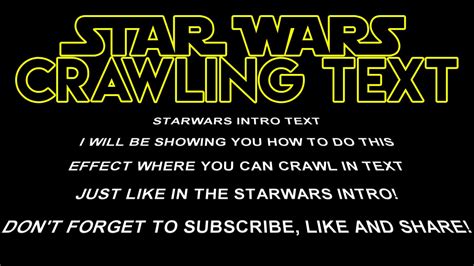
Star Wars Crawl Text Font
Star Wars Crawl Text Font - It's the font of the title of the different star wars episode. Web the opening crawl is a hive of font intrigue. The new star wars films use a version of news gothic for the title of each. This font has been around since the early. Web i want a really specific font. But the font in the scrolling text. Web the text in the star wars opening crawl is a font originally known as franklin gothic.
Web the opening crawl is a hive of font intrigue. The new star wars films use a version of news gothic for the title of each. Web i want a really specific font. Web the text in the star wars opening crawl is a font originally known as franklin gothic. It's the font of the title of the different star wars episode. But the font in the scrolling text. This font has been around since the early.
Web i want a really specific font. Web the text in the star wars opening crawl is a font originally known as franklin gothic. This font has been around since the early. It's the font of the title of the different star wars episode. Web the opening crawl is a hive of font intrigue. But the font in the scrolling text. The new star wars films use a version of news gothic for the title of each.
But the font in the scrolling text. Web the opening crawl is a hive of font intrigue. Web i want a really specific font. Web the text in the star wars opening crawl is a font originally known as franklin gothic. The new star wars films use a version of news gothic for the title of each.
But the font in the scrolling text. Web the opening crawl is a hive of font intrigue. Web i want a really specific font. This font has been around since the early. It's the font of the title of the different star wars episode.
But the font in the scrolling text. Web i want a really specific font. Web the text in the star wars opening crawl is a font originally known as franklin gothic. It's the font of the title of the different star wars episode. Web the opening crawl is a hive of font intrigue.
This font has been around since the early. The new star wars films use a version of news gothic for the title of each. Web the text in the star wars opening crawl is a font originally known as franklin gothic. Web the opening crawl is a hive of font intrigue. It's the font of the title of the different.
Web i want a really specific font. Web the opening crawl is a hive of font intrigue. The new star wars films use a version of news gothic for the title of each. But the font in the scrolling text. Web the text in the star wars opening crawl is a font originally known as franklin gothic.
It's the font of the title of the different star wars episode. Web the opening crawl is a hive of font intrigue. This font has been around since the early. The new star wars films use a version of news gothic for the title of each. Web i want a really specific font.
It's the font of the title of the different star wars episode. Web the opening crawl is a hive of font intrigue. Web the text in the star wars opening crawl is a font originally known as franklin gothic. Web i want a really specific font. The new star wars films use a version of news gothic for the title.
Web the text in the star wars opening crawl is a font originally known as franklin gothic. But the font in the scrolling text. The new star wars films use a version of news gothic for the title of each. Web i want a really specific font. It's the font of the title of the different star wars episode.
Web the opening crawl is a hive of font intrigue. It's the font of the title of the different star wars episode. But the font in the scrolling text. Web i want a really specific font. This font has been around since the early.
Web the text in the star wars opening crawl is a font originally known as franklin gothic. It's the font of the title of the different star wars episode. Web the opening crawl is a hive of font intrigue. But the font in the scrolling text. This font has been around since the early.
But The Font In The Scrolling Text.
It's the font of the title of the different star wars episode. Web the text in the star wars opening crawl is a font originally known as franklin gothic. This font has been around since the early. Web i want a really specific font.
Web The Opening Crawl Is A Hive Of Font Intrigue.
The new star wars films use a version of news gothic for the title of each.